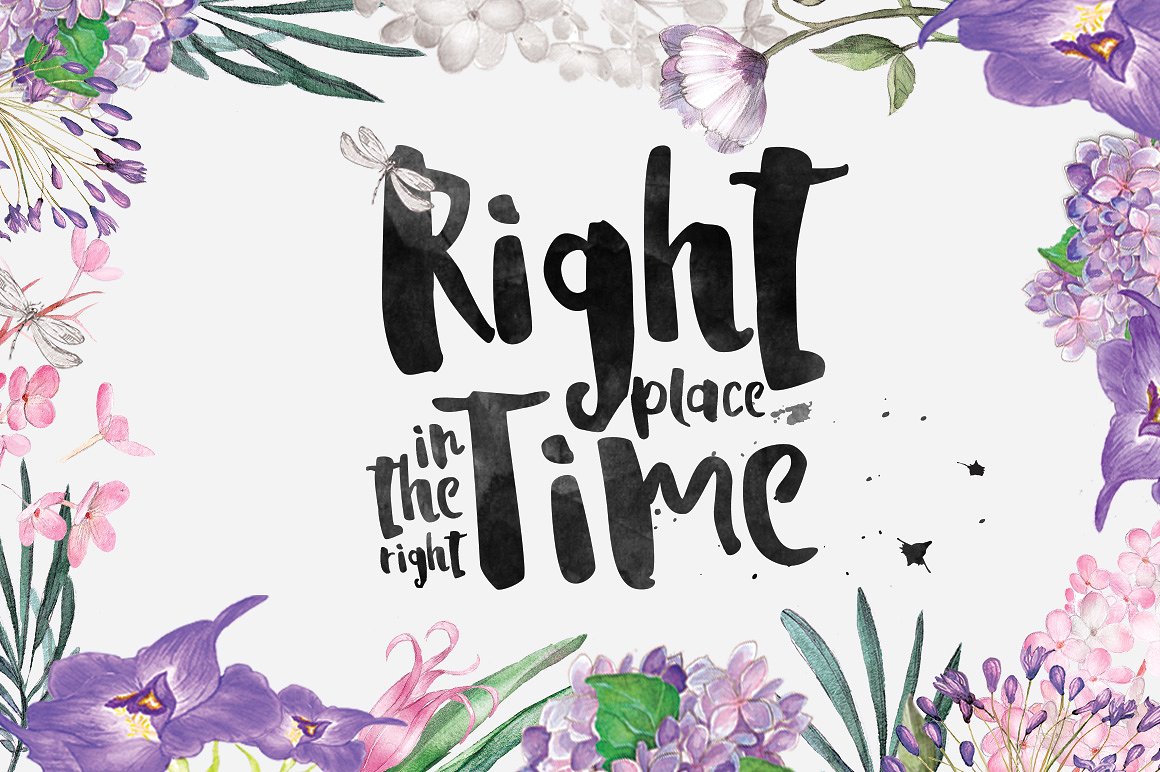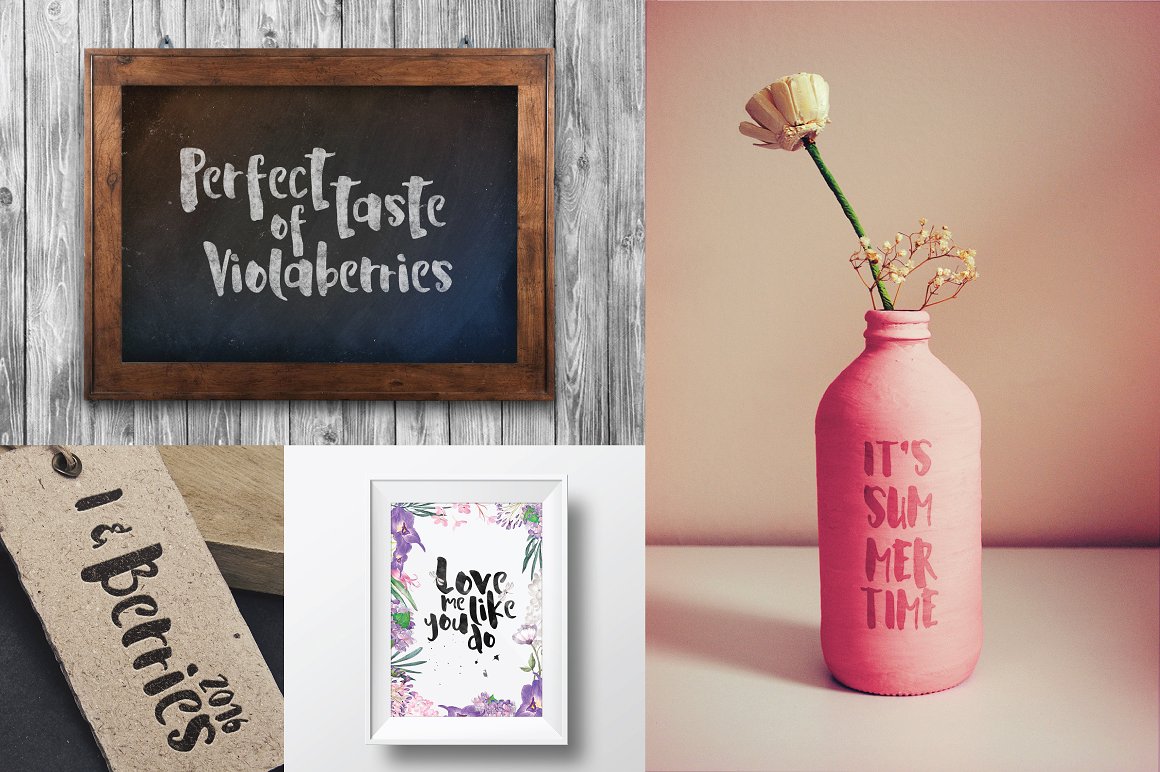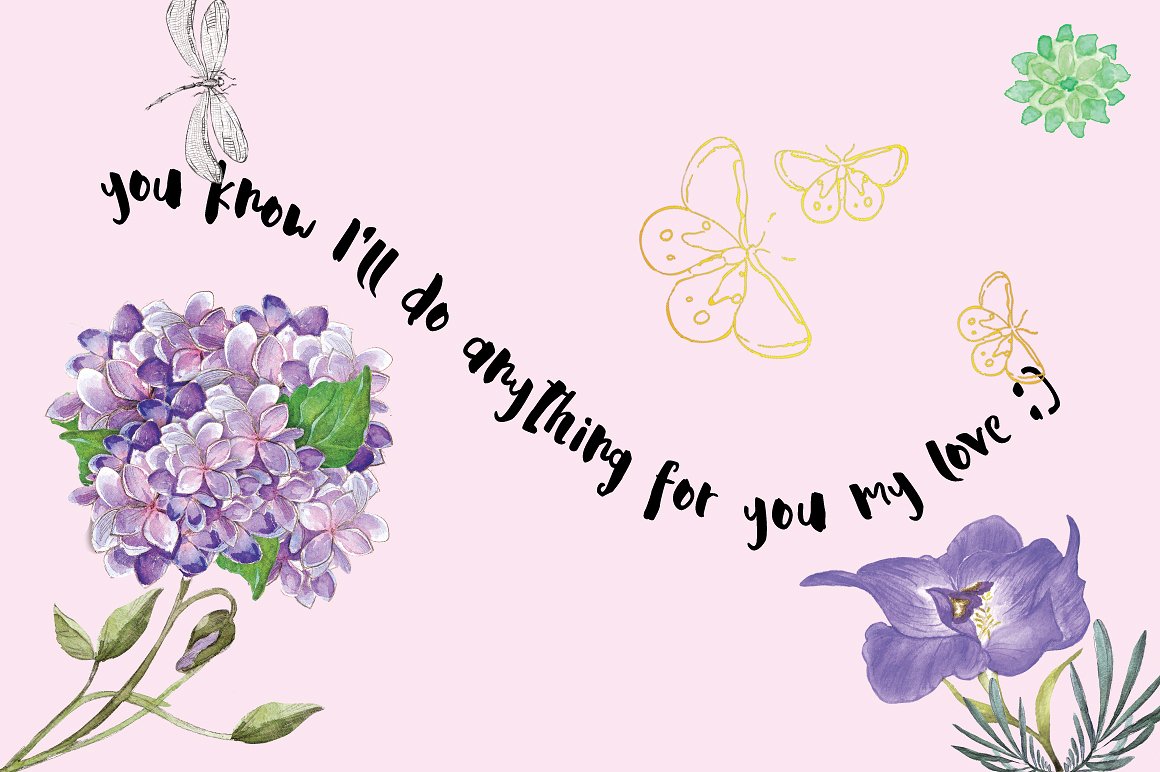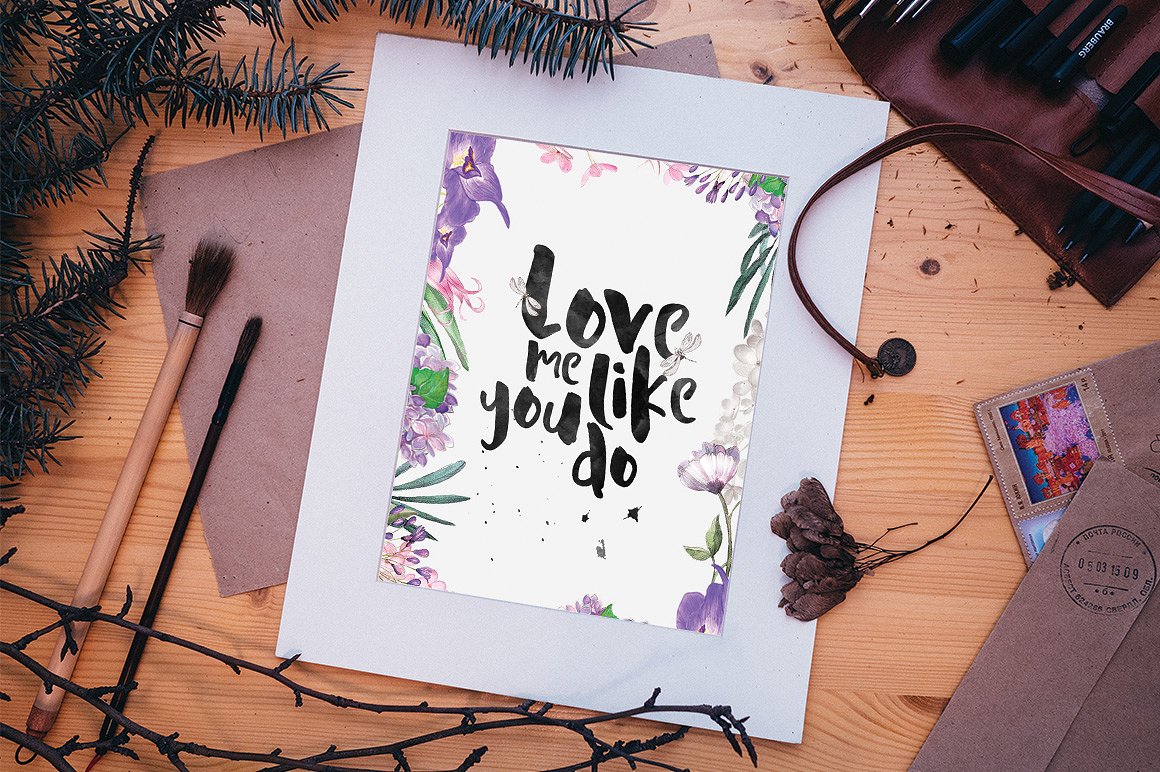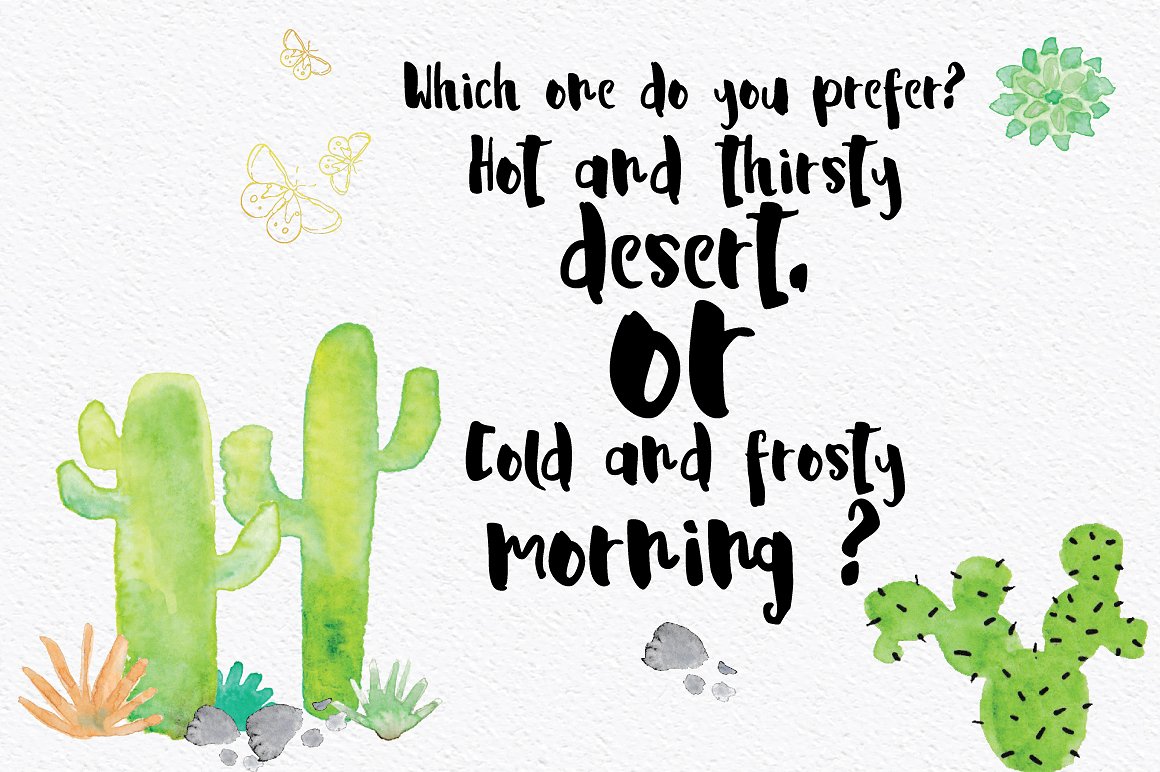
If you’re in need of a beautiful new script font, set your eyes on La Viola. This gorgeous typeface was designed by Font & Graphic Land. Use it on wedding invitations, watermarks, logos, cards or T-shirts in both personal and commercial projects.